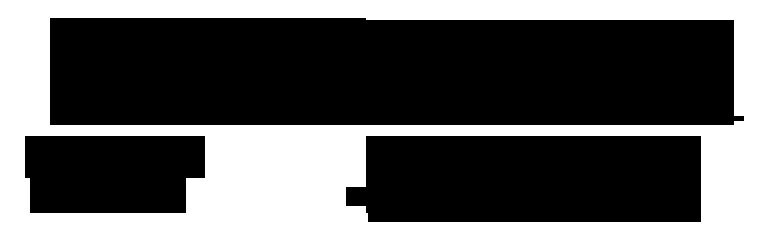
Rockster by Max Infeld of Xerographer.com is a free decorative display font with the restless silhouette of cut-paper lettering. Sharp wedges, pinched curves, and abrupt shifts in width make the letters look hand-cut and tightly interlocked, with each form taking a different route through the line.
A punk label or independent music venue could use its fractured shapes across posters, album packaging, and merchandise. It thrives on theatrical disorder. The lettering is most convincing in music graphics, where its spikes and compressed joins can become part of the act's recognizable mark.
Rockster